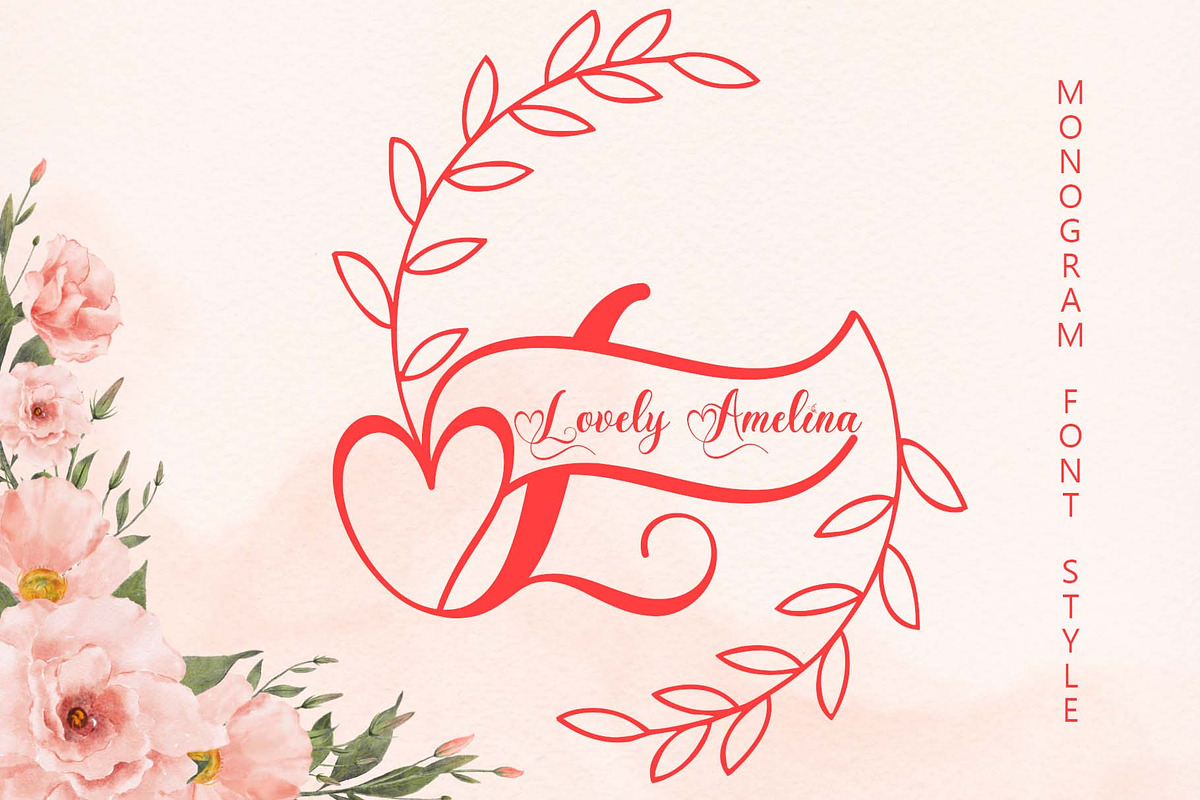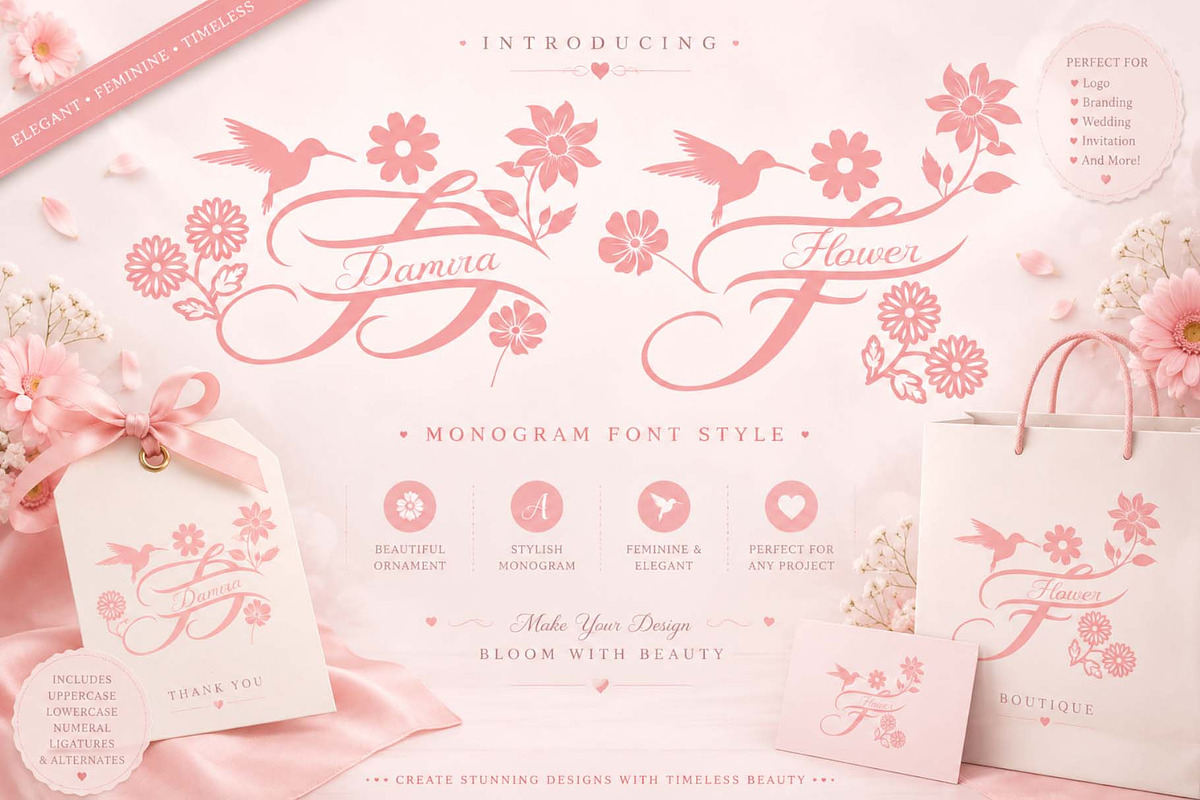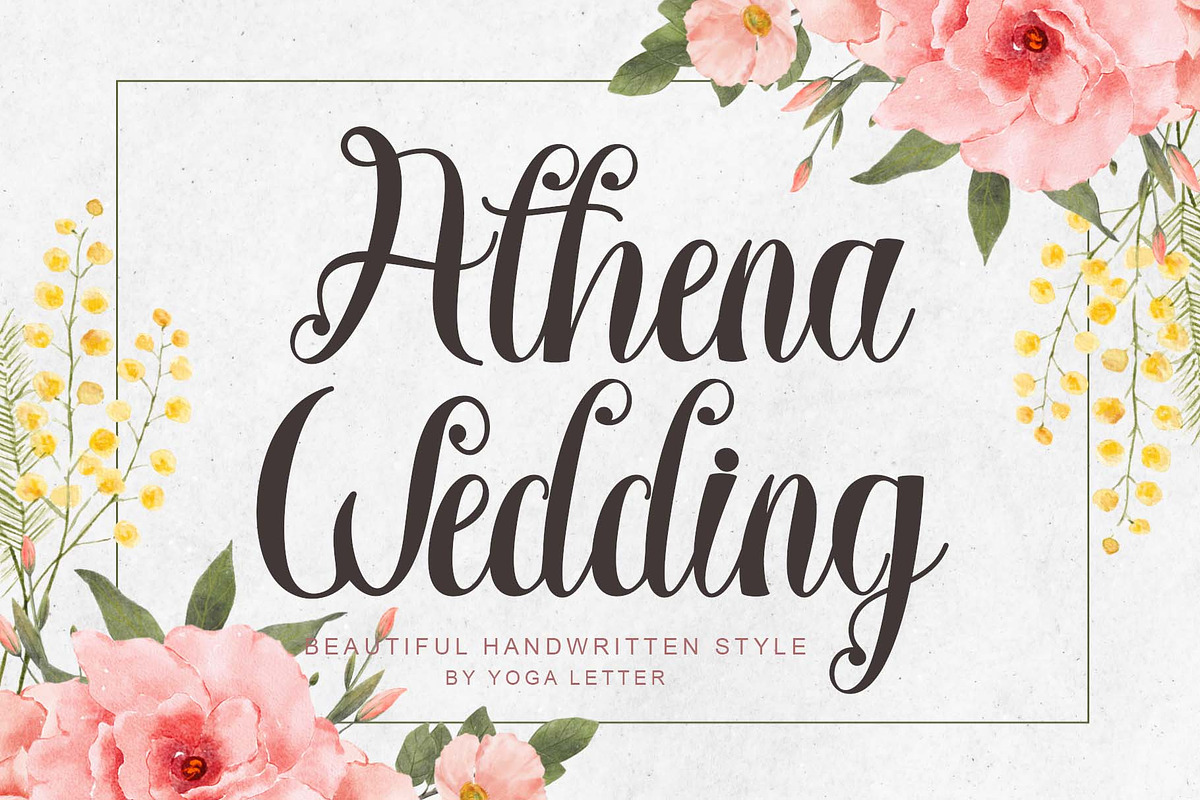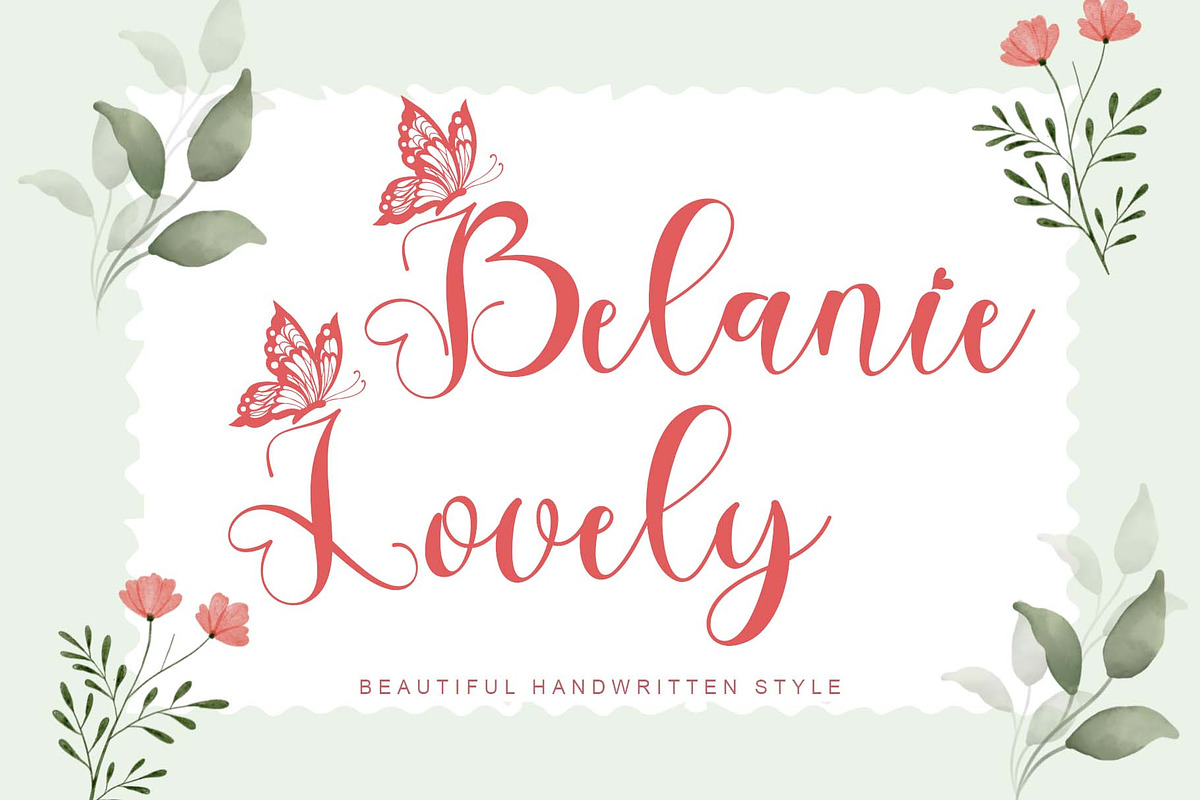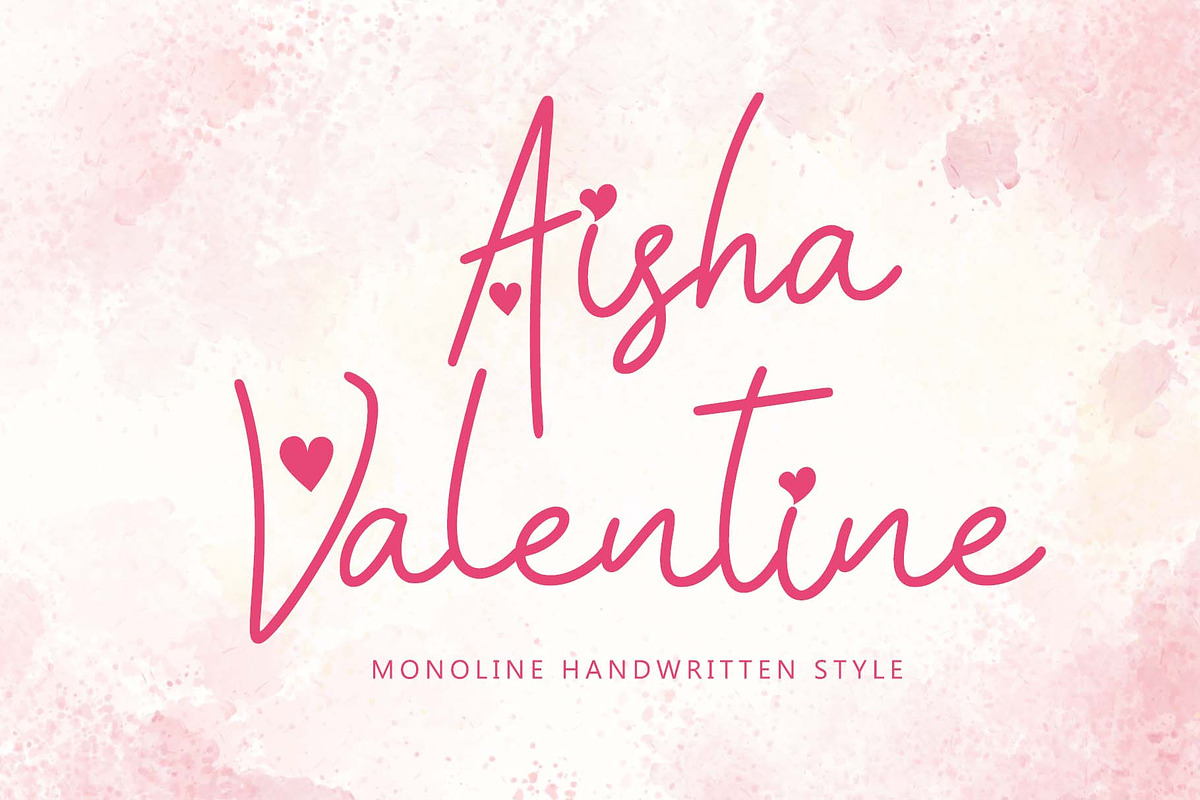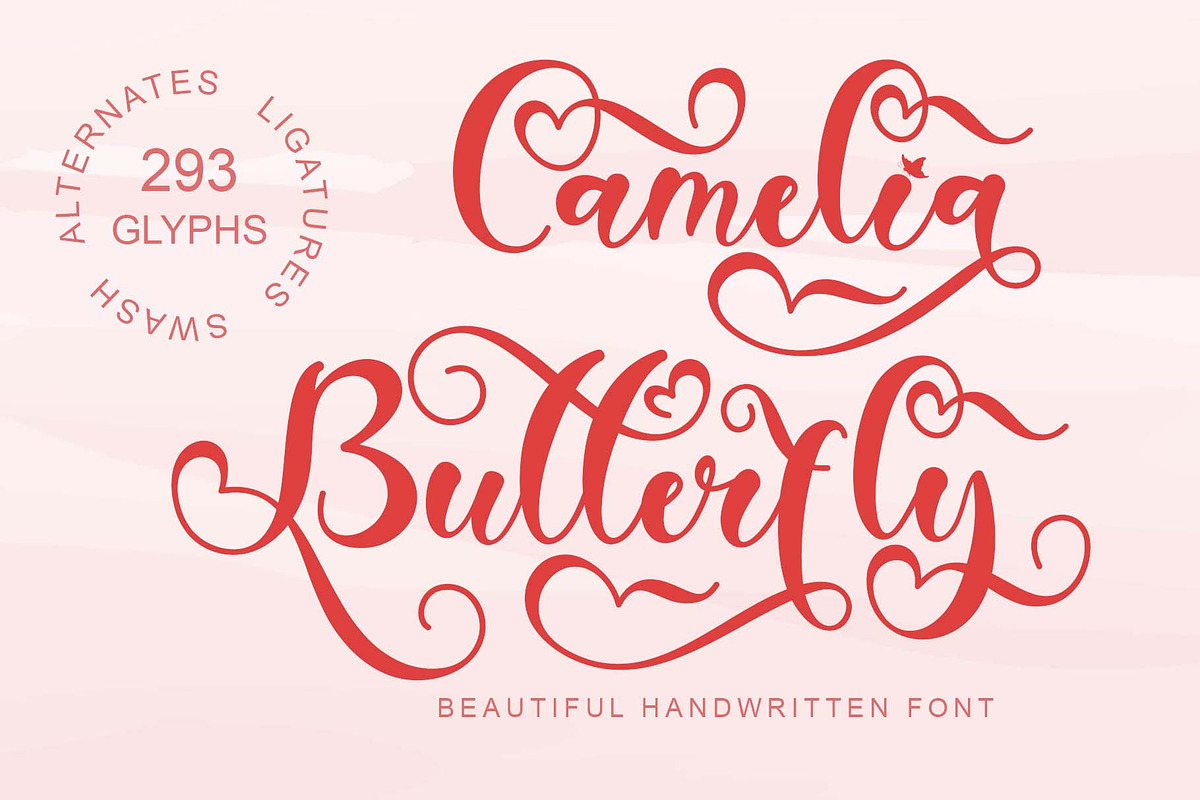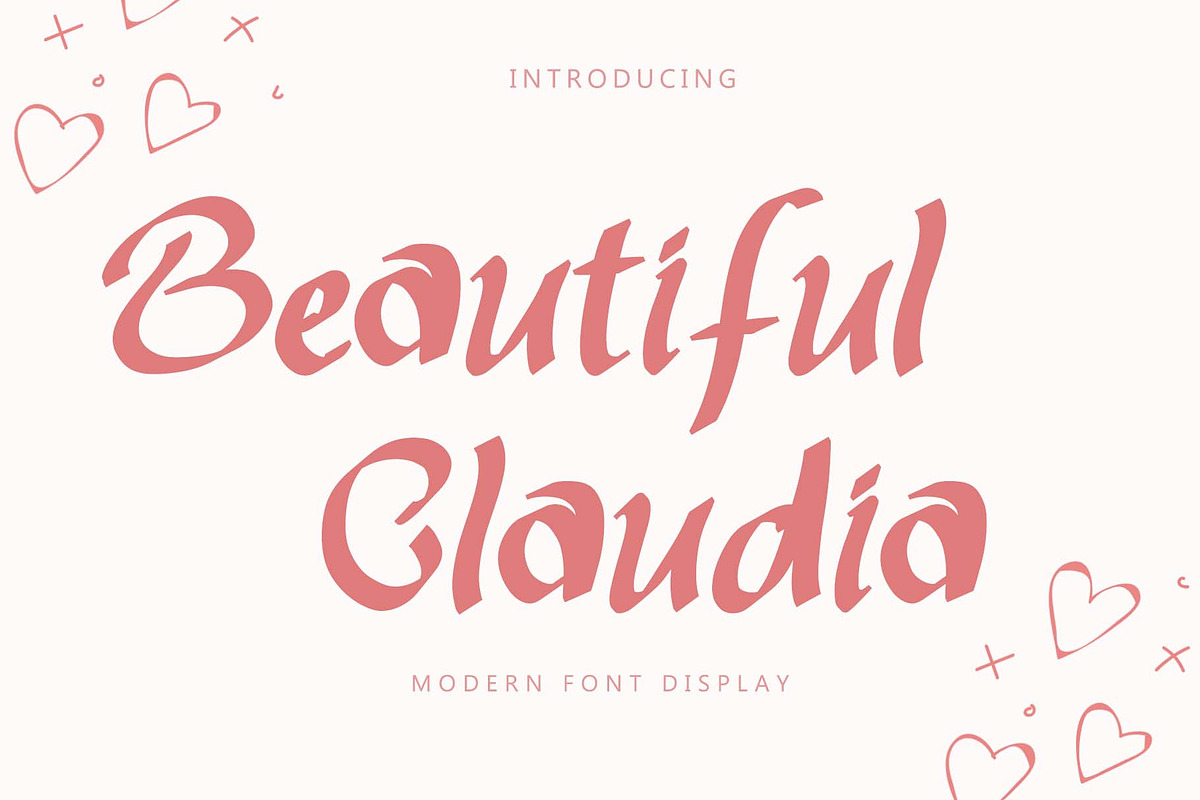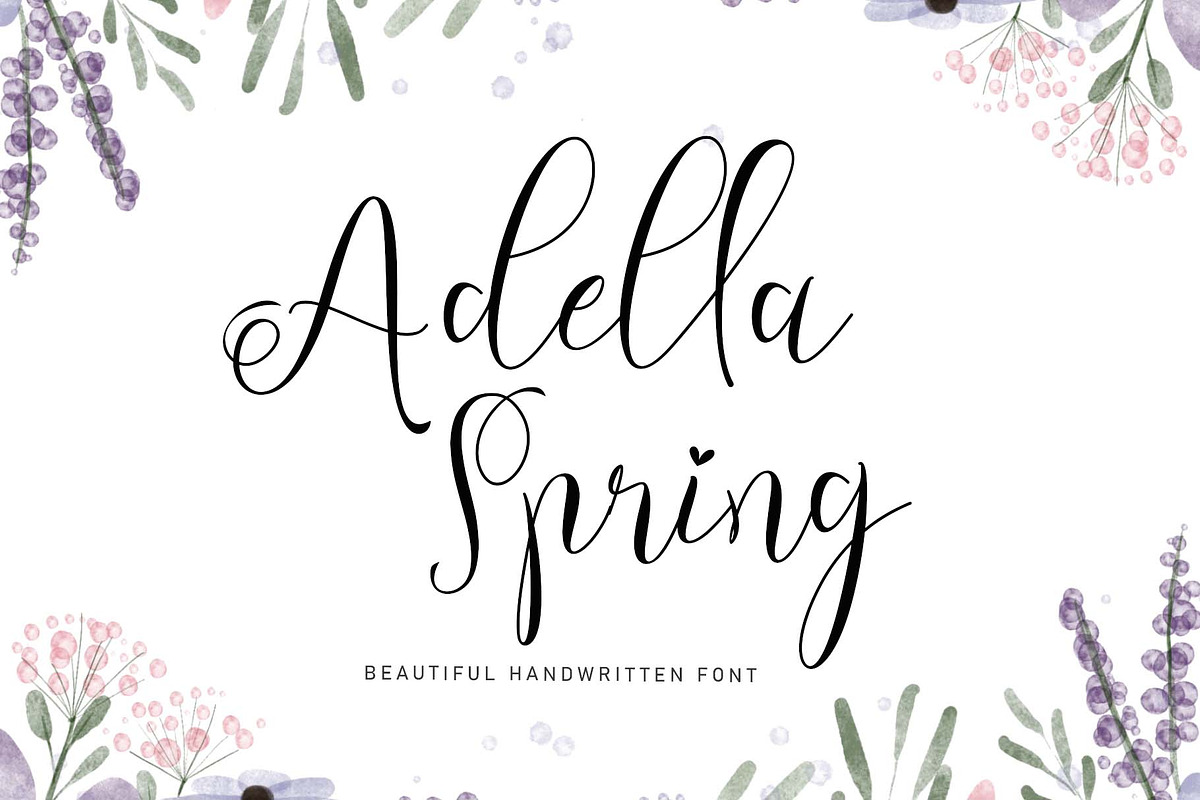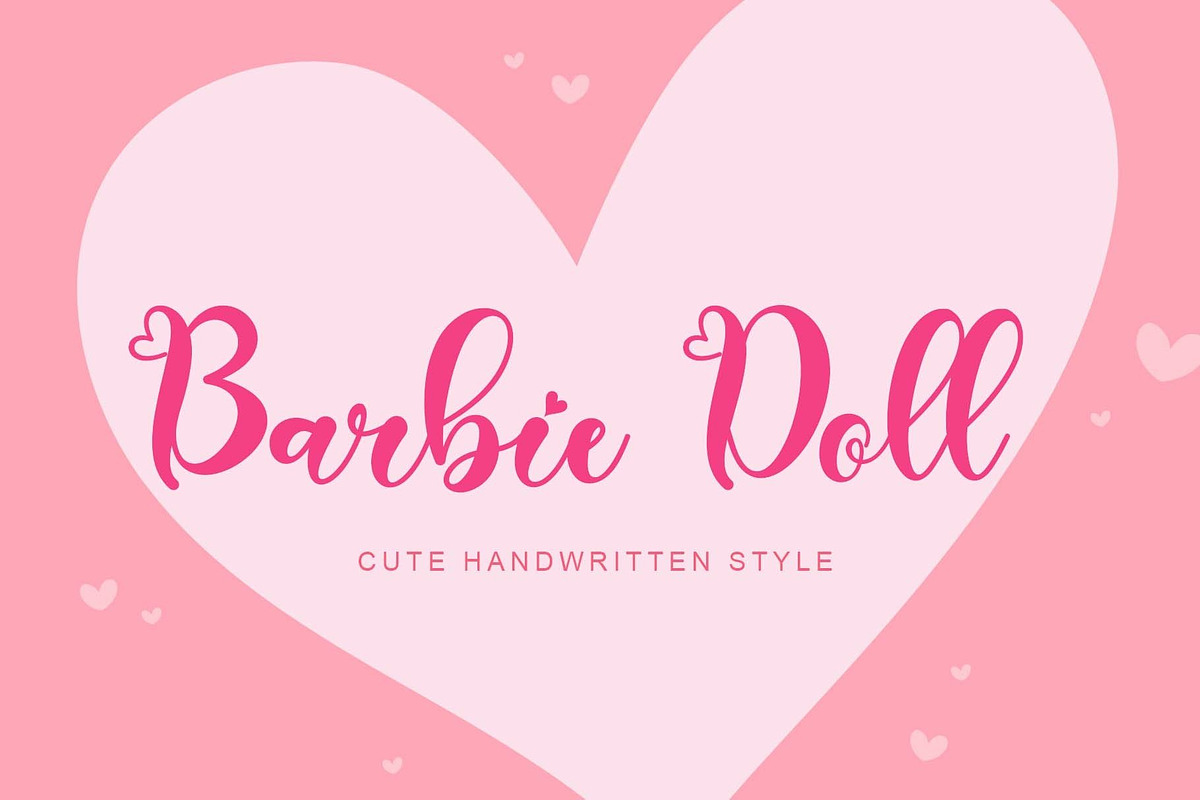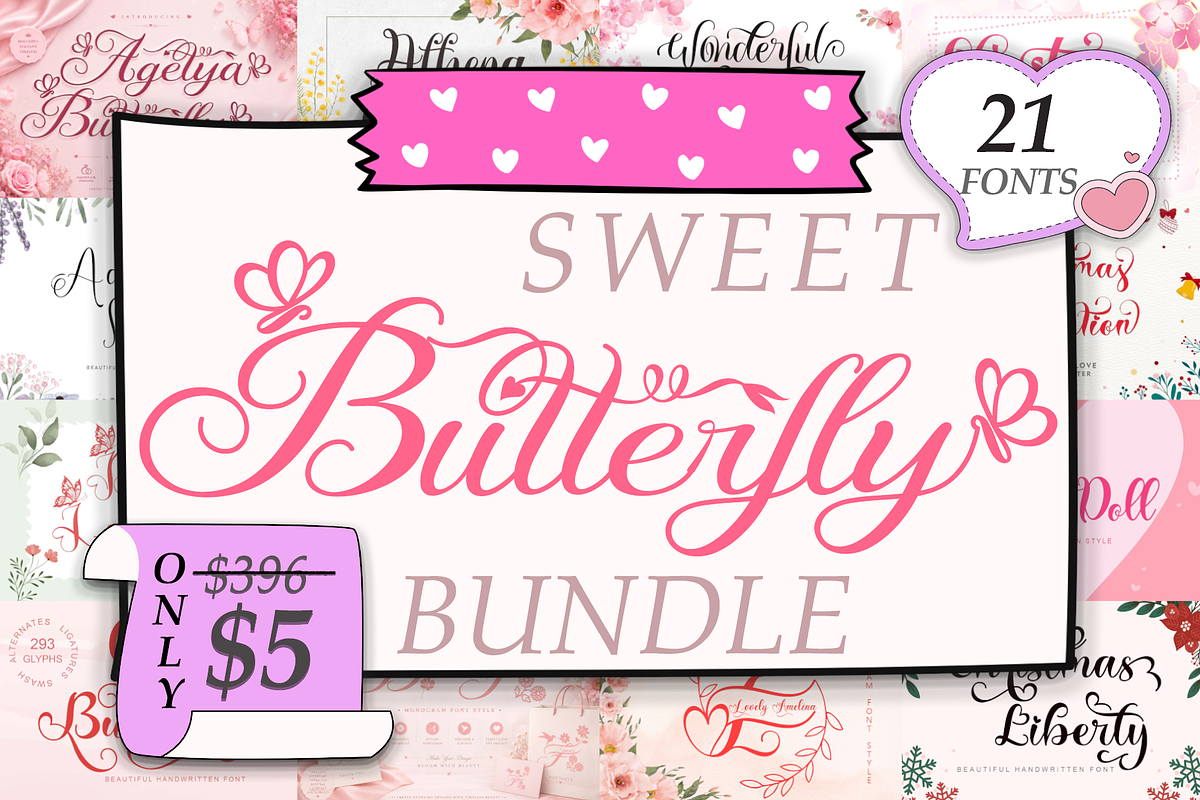
Butterfly Sweet Bundle
Complete font for all your work.
This bundle contains 21 beautiful fonts :
1. Damira Flower Monogram
2. Mother Spring
3. Barbie Doll
4. Kinanshi
5. Arkite
6. Christmas Celebration
7. Vienetta
8. Romantic Christmas
9. Wonderful Marytha
10. Christmas Liberty
11. Christmas Rolisya
12. Athena Wedding
13. Lovely Amelina
14. Summer Resort
15. Adella Spring
16. Belanie Lovely
17. Birthday Heart
18. Camelia Butterfly
19. Aisha Valentine
20. Beautiful Claudia
21. Agetya Butterfly